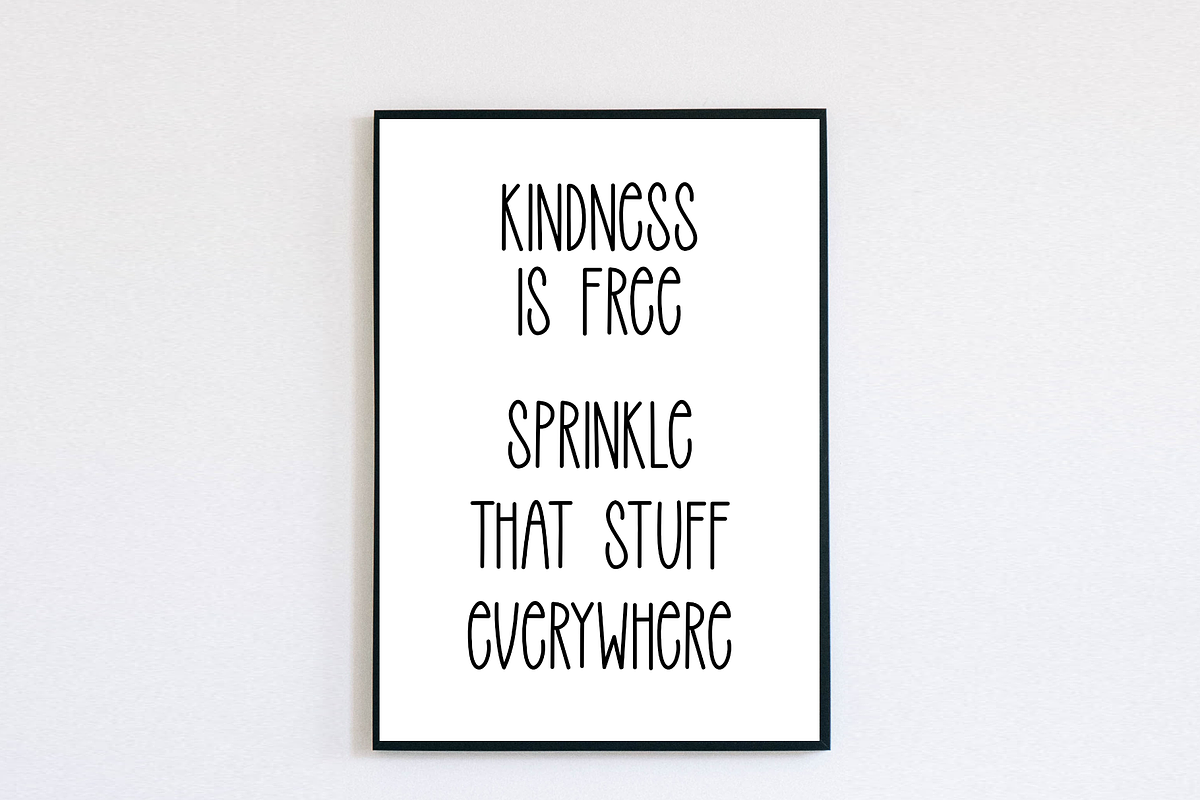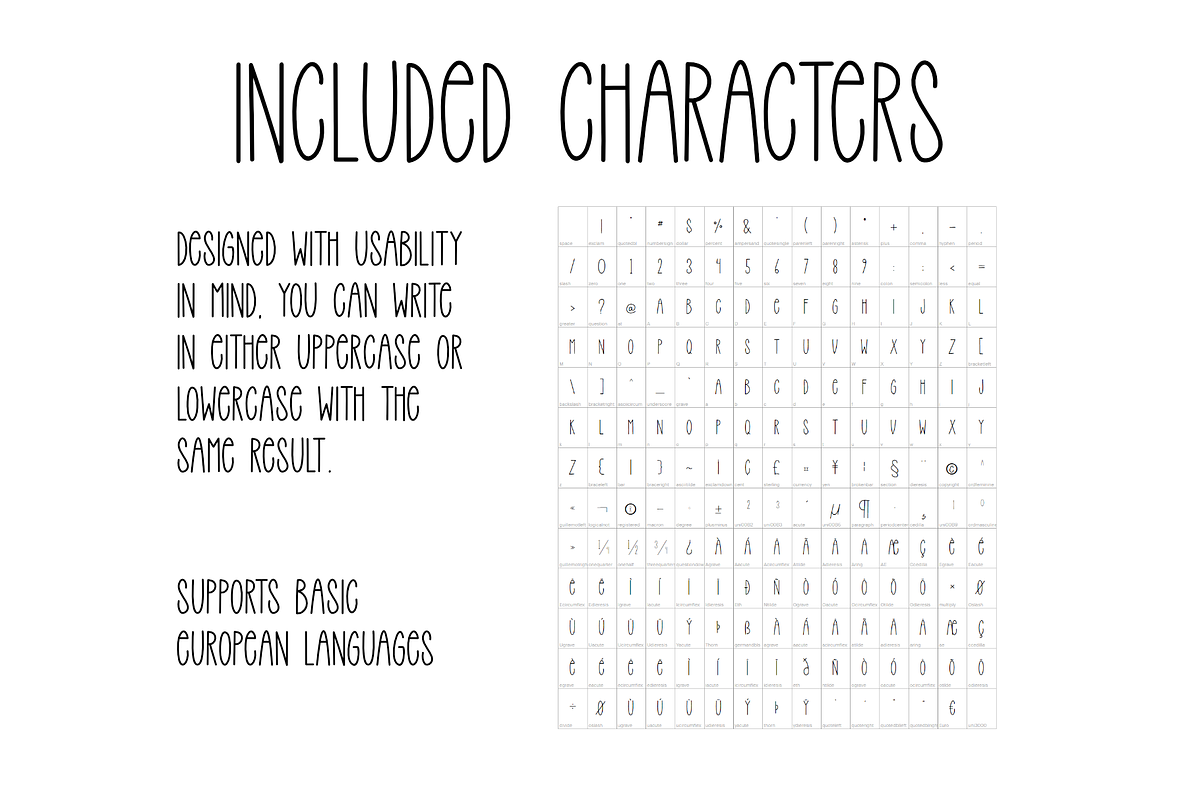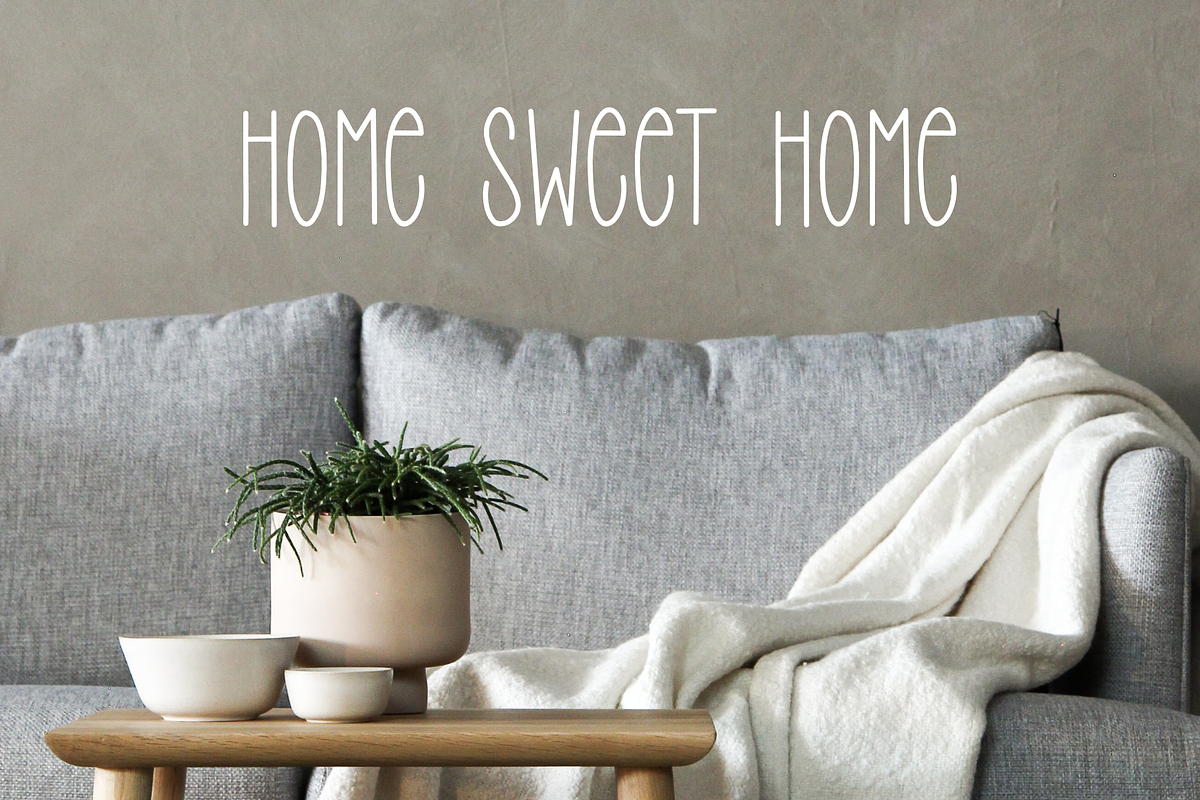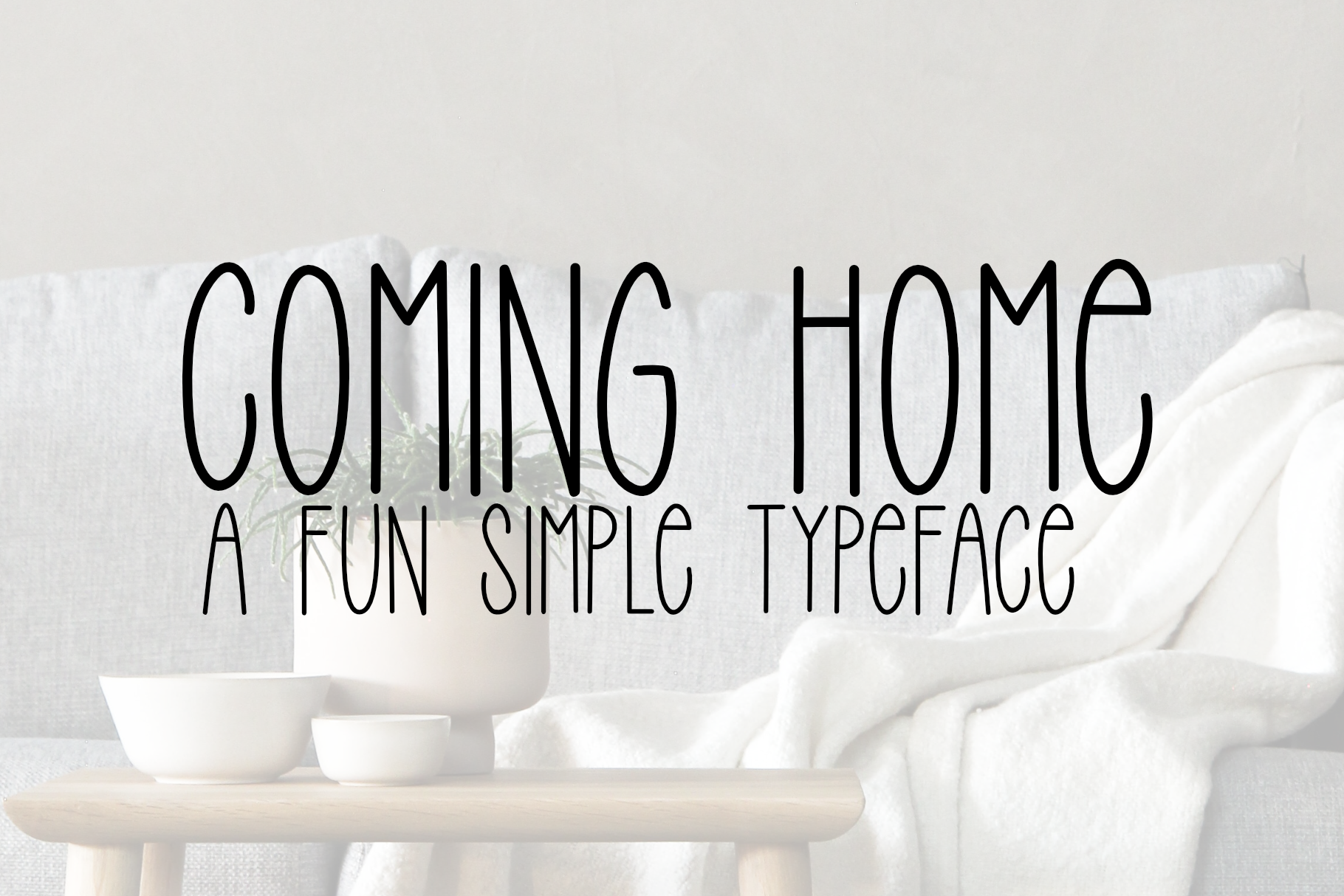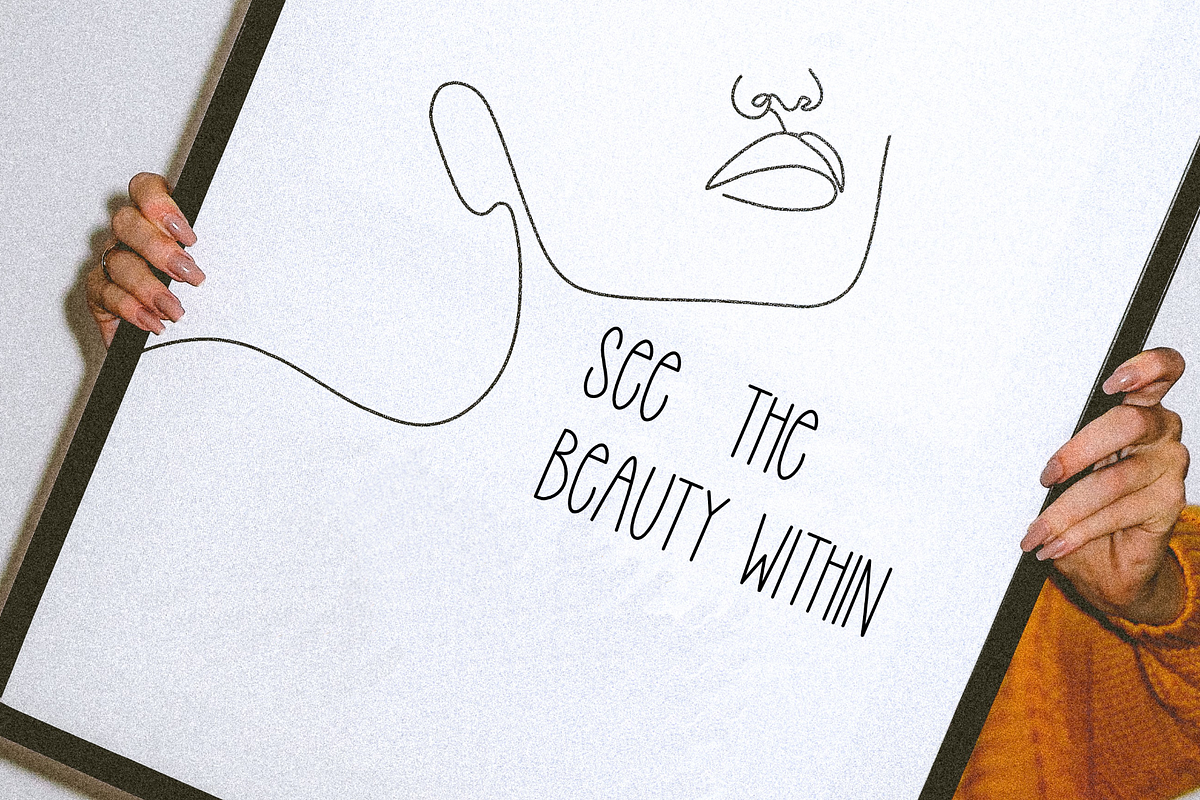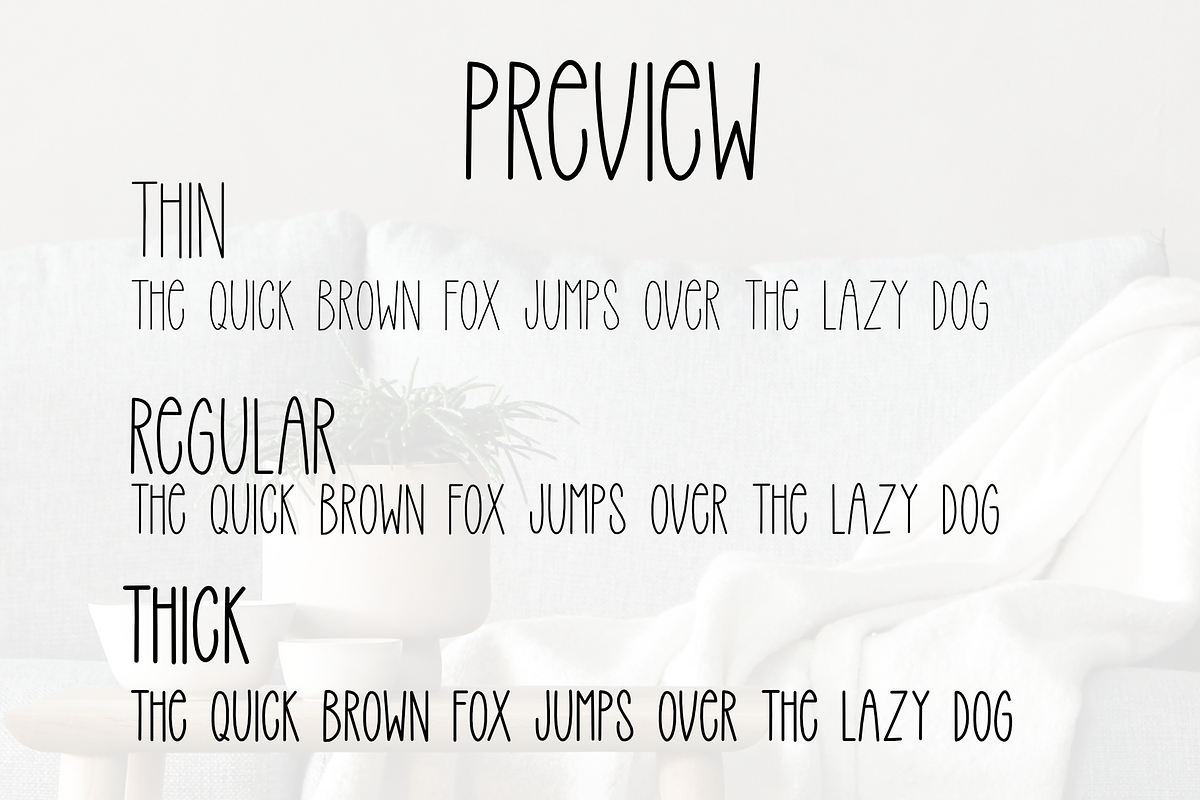
Coming Home - a sans serif font
Coming home is a fun simple handwritten typeface, in the style of sans-serif. You will get the font Coming Home in three weights, and in both .ttf and .otf